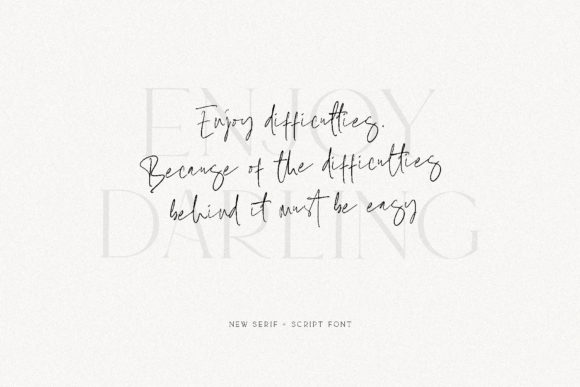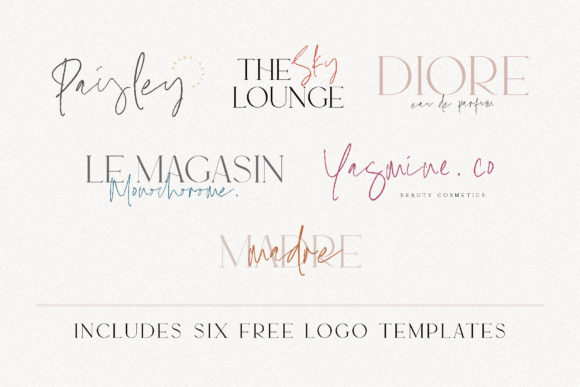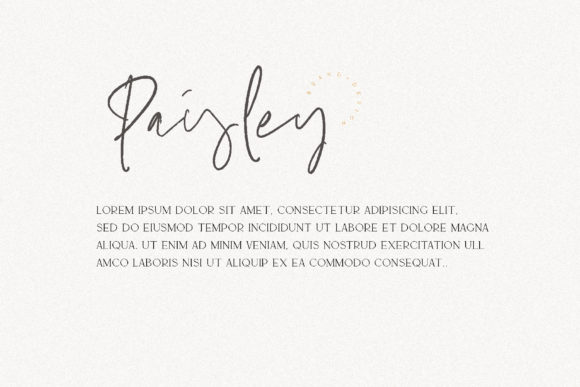
Introduction to Marion & the Essentials Font
Have you ever been in the midst of a creative project, staring at a blank screen, trying to find the perfect font to bring your vision to life? That’s exactly where I was when I stumbled upon Marion & the Essentials Font. This stunning duo combines the effortless charms of two distinct fonts, making any design project a true standout. I remember the excitement I felt when I first saw the possibilities this font pair offered – a transparent background that allowed the text to shine, a free download that saved me time, and a high-quality design resource that elevated my entire creative process.
As a designer, I can attest that having access to the right fonts can make all the difference in the world. With Marion & the Essentials Font, I felt empowered to take my creative project to the next level, experimenting with new ideas and pushing the boundaries of what was possible. And the best part? This font duo is available for free download, making it an invaluable resource for designers of all levels.
Key Features of Marion & the Essentials Font
- High-quality design font suitable for creative projects and professional use.
- Includes a comprehensive set of characters, including uppercase and lowercase letters, numbers, and punctuation marks.
- Designed with a clean and modern aesthetic, making it perfect for a variety of design applications, from logos to typography.
Honest Review: Marion & the Essentials Font
I recently had the chance to work with the Marion & the Essentials Font, and I must say it’s been a game-changer for my creative projects. This font is a high-quality design resource that’s perfect for any project that requires a clean, elegant look.
One of the things that stands out about Marion & the Essentials Font is its versatility. I’ve used it for a wide range of projects, from business cards to website headers, and it always looks great. The font is highly customizable, with a transparent background that makes it easy to use with any background image or color.
- High-quality design that looks great on any project
- No support for multiple languages (only Latin-based scripts)
Overall, I’m really impressed with Marion & the Essentials Font. It’s a great addition to any designer’s toolkit, and I would highly recommend it for any creative project that requires a high-quality, elegant font. Just be aware of the limitations, and you’ll be good to go!
Transparent Background
One of the unique features of Marion & the Essentials Font is its transparent background, making it perfect for overlaying on images or videos. This feature allows for a seamless integration with your creative project, adding a professional touch.
For optimal results, use Marion & the Essentials Font in conjunction with other high-quality design resources. Experiment with different font sizes and styles to add visual interest to your project.
The Marion & the Essentials Font is ideal for a variety of creative projects, including logos, brochures, and social media graphics. Its clean and modern design makes it perfect for any industry or business looking to make a statement.